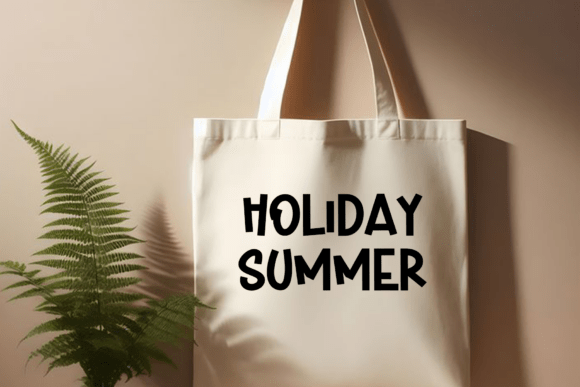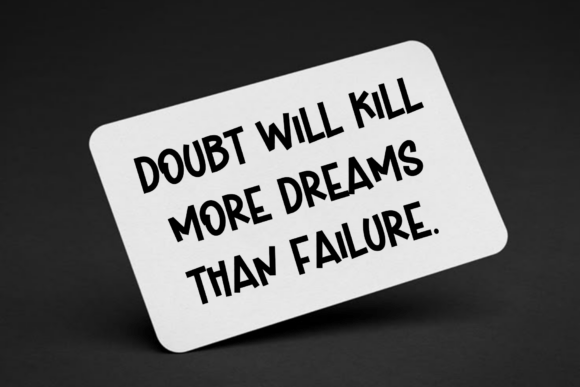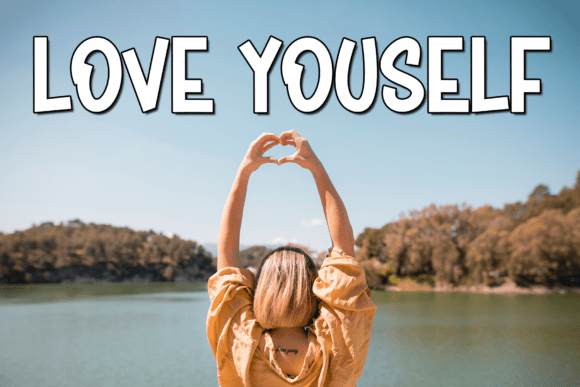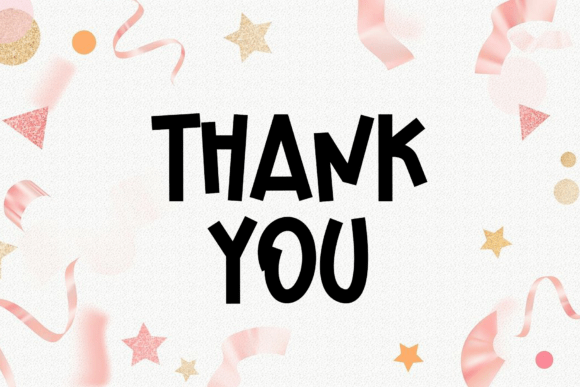
Introducing Birthday Kids Font: The Perfect Blend of Simplicity and Friendliness
Are you on the lookout for a font that can add a warm and inviting touch to your designs? Look no further than the Birthday Kids Font. This casual and neat display font is designed to combine simplicity with a friendly, approachable vibe, making it perfect for a wide range of design applications.
Clean Lines, Balanced Letterforms, and Subtle Rounded Edges
One of the standout features of the Birthday Kids Font is its clean lines, balanced letterforms, and subtle rounded edges. These design elements work together to create a font that captures the essence of modern handwritten typography with a polished finish. The clean lines and balanced letterforms ensure that the font is easy to read, while the subtle rounded edges add a touch of warmth and friendliness.
Ideal for Branding, Headlines, Packaging, and Digital Content
The Birthday Kids Font is incredibly versatile and can be used for a wide range of design applications. It’s ideal for branding, headlines, packaging, and digital content, making it a great addition to any designer’s toolkit. Whether you’re creating a logo, designing a website, or crafting a social media post, this font is sure to add a warm and inviting touch to your design.
Adding a Warm and Inviting Touch to Your Designs
One of the key benefits of the Birthday Kids Font is its ability to add a warm and inviting touch to any design. The font’s clean lines, balanced letterforms, and subtle rounded edges create a sense of approachability and friendliness, making it perfect for designs that need to connect with their audience on a personal level. Whether you’re designing for a children’s brand, a lifestyle brand, or a non-profit organization, this font is sure to help you create a design that resonates with your audience.
Crafting a Unique Visual Identity with Birthday Kids Font
In today’s crowded design landscape, it’s more important than ever to create a unique visual identity that sets your brand apart. The Birthday Kids Font can help you do just that. With its crisp structure and versatile style, this font delivers clarity and charm in equal measure, making it perfect for designers who want to create a design that stands out from the crowd.
Key Features of Birthday Kids Font
- Clean lines and balanced letterforms: The font’s clean lines and balanced letterforms ensure that it’s easy to read and understand.
- Subtle rounded edges: The font’s subtle rounded edges add a touch of warmth and friendliness to any design.
- Versatile style: The font’s versatile style makes it perfect for a wide range of design applications, from branding and headlines to packaging and digital content.
- Crisp structure: The font’s crisp structure ensures that it’s clear and easy to read, even at small sizes.
Tips for Using Birthday Kids Font in Your Designs
Here are a few tips for using the Birthday Kids Font in your designs:
- Use it for headlines and titles: The font’s bold and playful style makes it perfect for headlines and titles.
- Pair it with other fonts: The font’s versatility makes it easy to pair with other fonts to create a unique visual identity.
- Experiment with different colors: The font’s clean lines and balanced letterforms make it easy to use with a wide range of colors and design styles.
In conclusion, the Birthday Kids Font is a versatile and charming font that’s perfect for designers who want to add a warm and inviting touch to their designs. With its clean lines, balanced letterforms, and subtle rounded edges, this font captures the essence of modern handwritten typography with a polished finish. Whether you’re designing for a children’s brand, a lifestyle brand, or a non-profit organization, this font is sure to help you create a design that resonates with your audience.